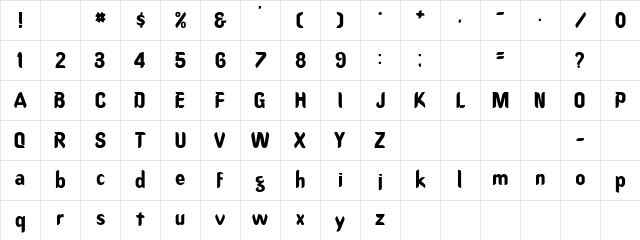
OregonDry Regular
OregonDry Family
Complete OregonDry Regular glyph index. Displaying only characters natively supported by OregonDry Regular font.
Design Context for OregonDry
OregonDry is a composed and adaptable typeface that performs quietly and consistently across a wide range of design contexts.